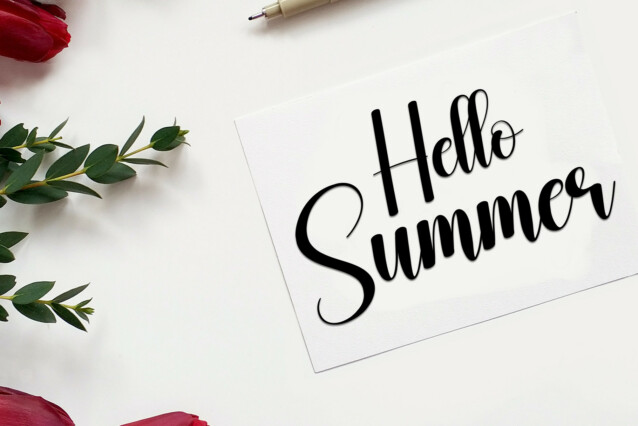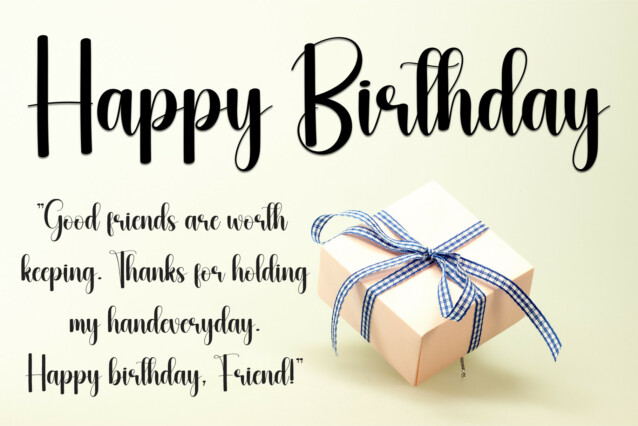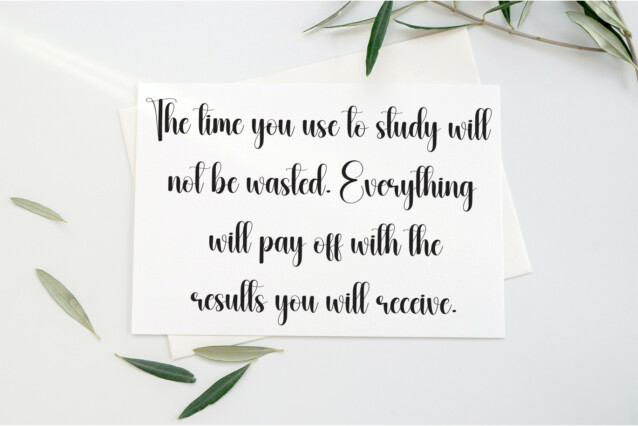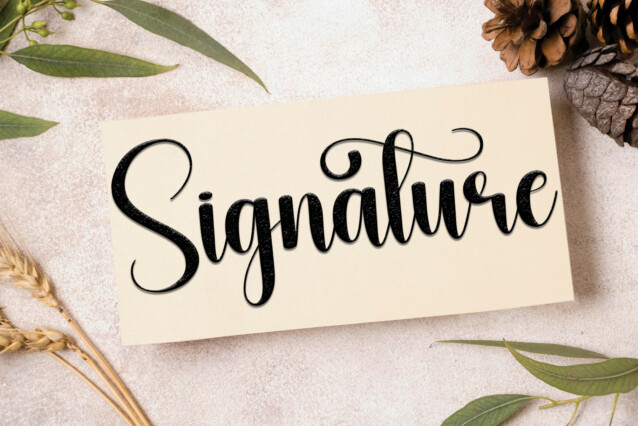
Sunbathe Script Font
Sunbathe Script Font is a sweet and friendly handwritten display font. Cute and fun, this font is ideal for writing wedding invitations, cards, or any other design that might need a playful touch!